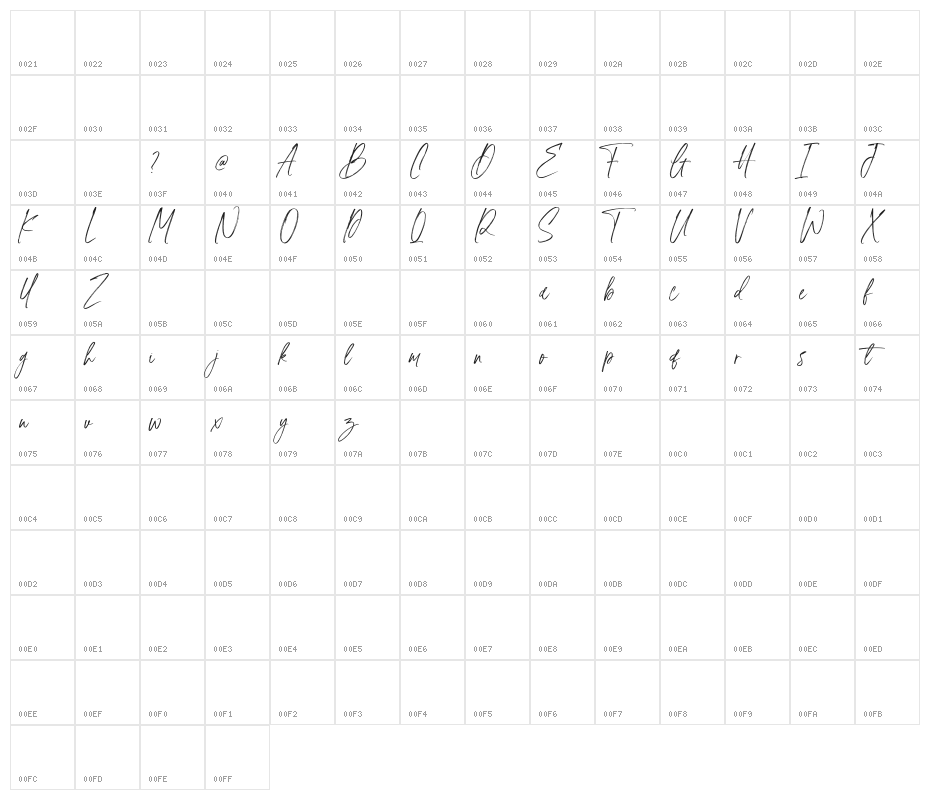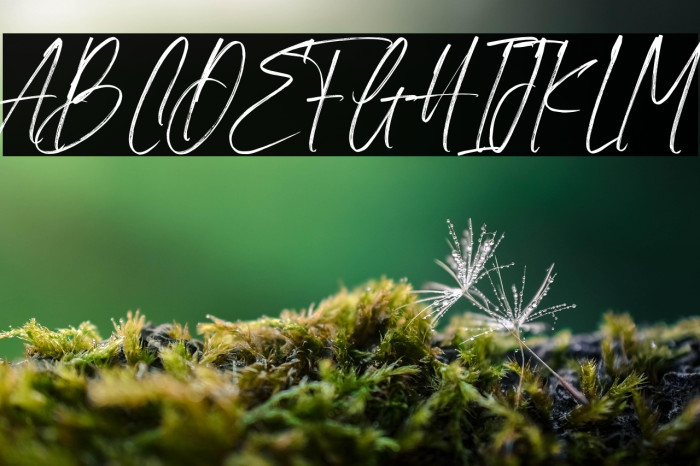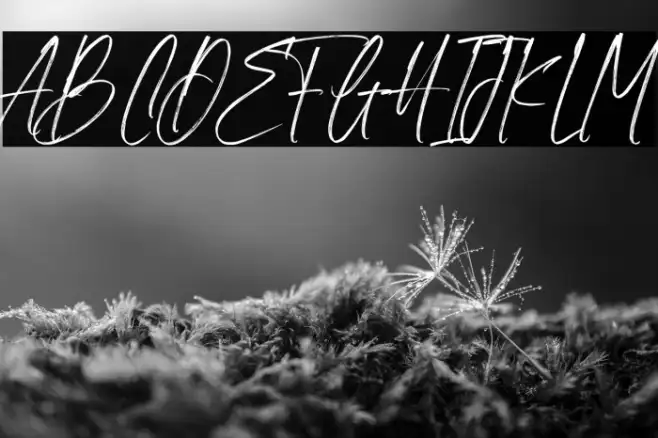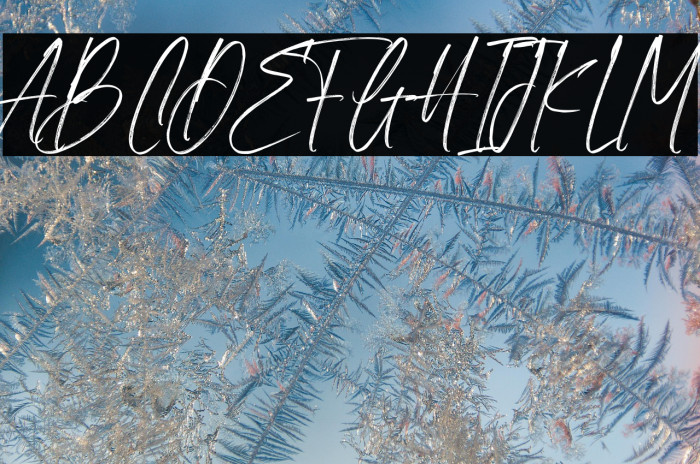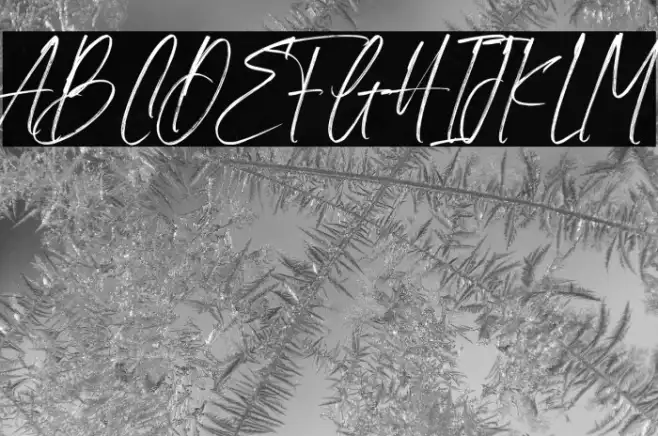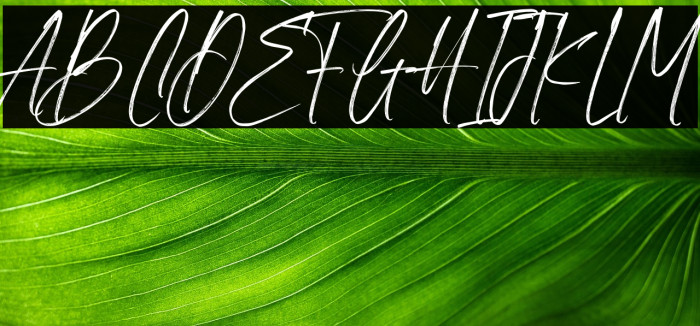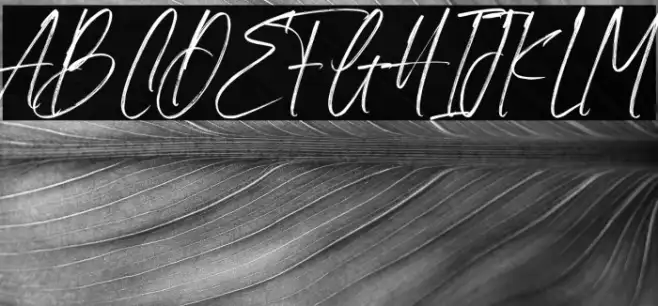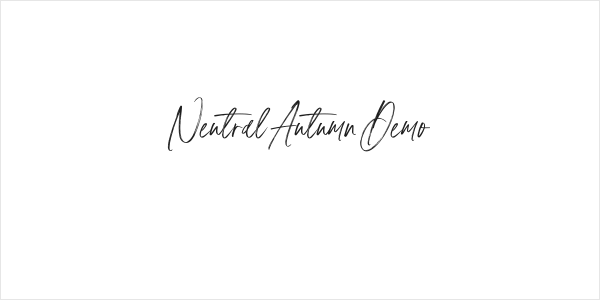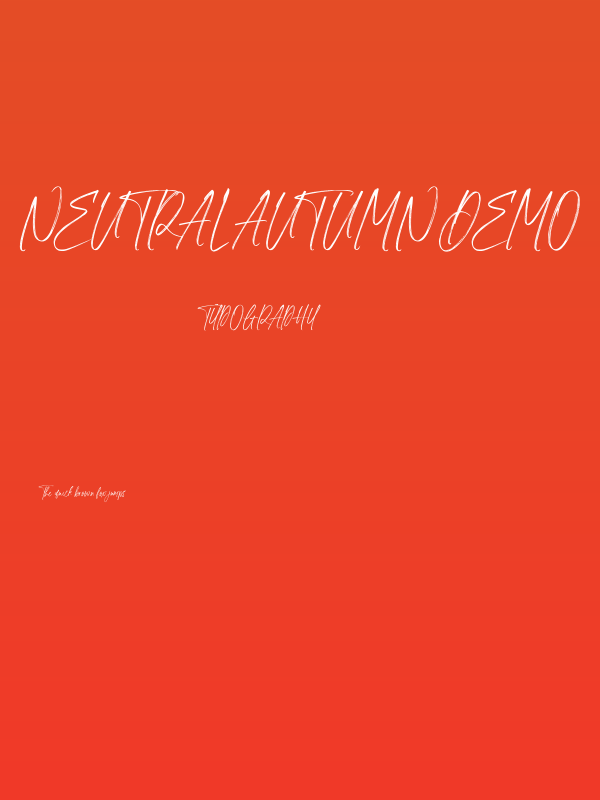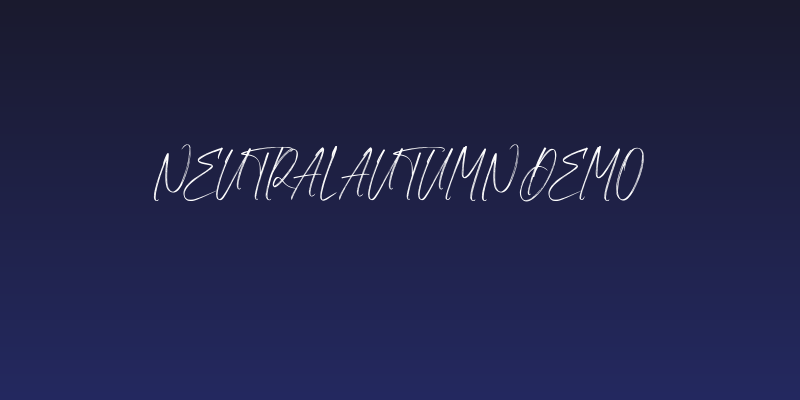
Neutral Autumn Demo Font
Neutral Autumn Demo Description
This font features a dynamic and flowing script style, characterized by its elegant and fluid strokes. The letters are connected in a cursive manner, giving it a handwritten appearance. The uppercase letters are bold and prominent, while the lowercase letters maintain a consistent flow with slightly varying heights. The overall design exudes a sense of movement and grace, making it suitable for creative and artistic projects. The strokes are thin, with a medium contrast between thick and thin lines, enhancing its legibility while maintaining an artistic flair.